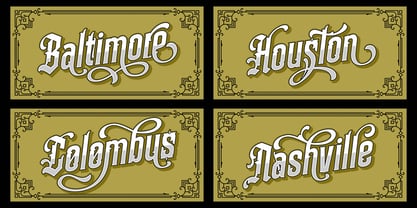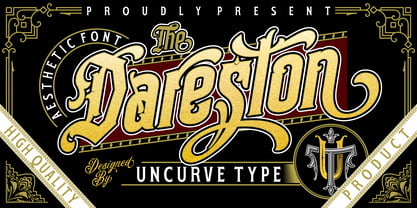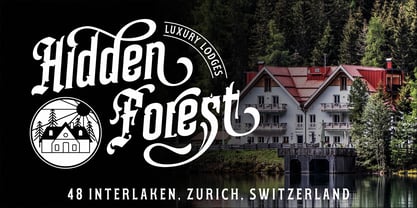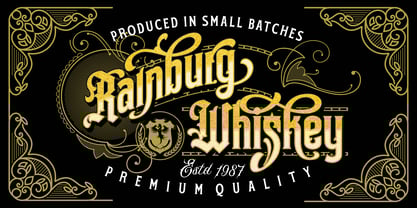
Dareston
Dareston — Vintage Victorian Ephemera Typeface Dareston is a beautifully crafted vintage Victorian font inspired by classic signage, gold-leaf lettering, and antique product labels. Designed with the elegance of old-world typography, Dareston brings the charm of the past into your modern projects. Its intricate details and ornamental touches make it perfect for capturing authentic vintage aesthetics. This font includes an impressive set of alternates — 3 alternate uppercase characters and 8 alternates for lowercase, with some letters offering up to 4 stylistic variations. This gives designers flexibility and creative freedom to mix, match, and build truly eye-catching compositions with ease. Whether you’re creating a logo, crafting a poster, or designing packaging, Dareston ensures every piece stands out with timeless character. Perfect for vintage logos, Victorian-inspired lettering, signage, posters, book covers, branding, magazines, apparel design, labels, packaging, movie titles, and so much more. Pair it with script, serif, or sans serif fonts, add a touch of texture or ornamentation, and BOOM! — your design transforms into a stunning vintage masterpiece.